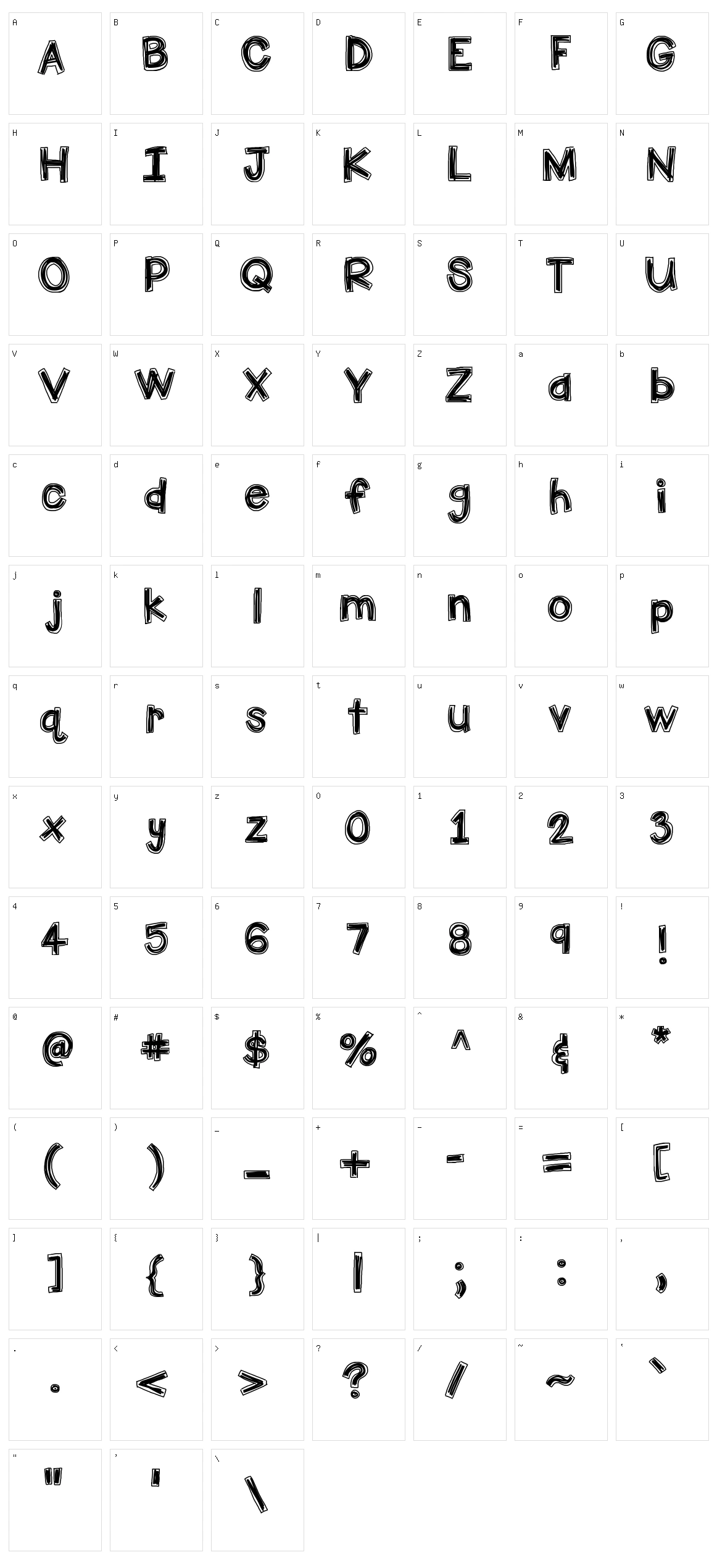
The free font Hello Firstie Big Gulp is carefully designed by Jen Jones, showcasing a thoughtful balance of creativity and usability and falls under the Cartoon font style. When you download the ZIP file, it contains only 146.61 KB of font files, making it lightweight and quick to download. Please review the license details below to understand permitted usage and distribution rights. If license information is not available, we recommend using this font for personal projects only or contacting the author directly for commercial usage permissions.